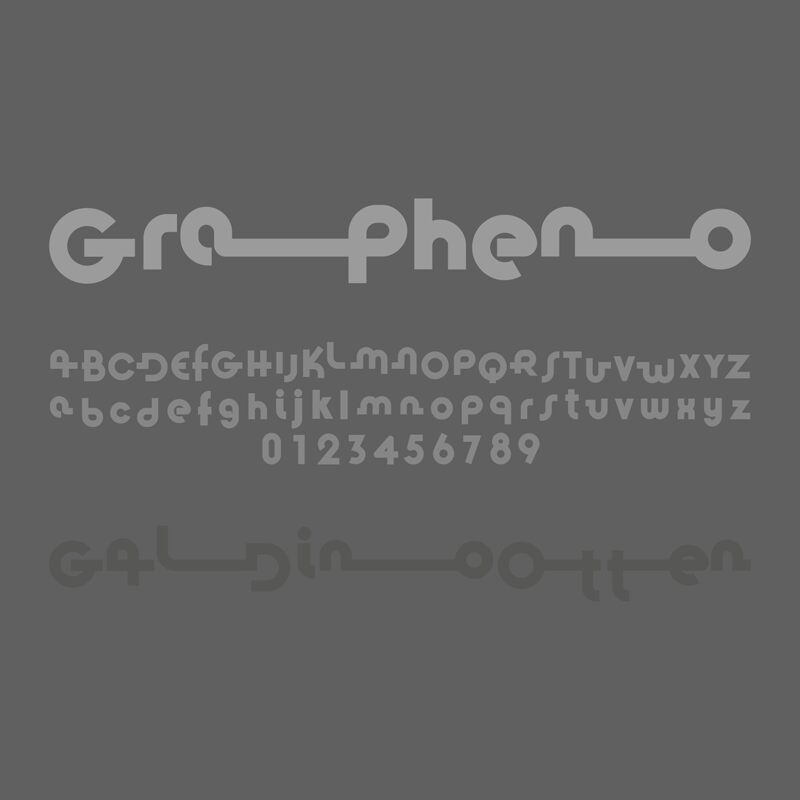
Grapheno
Grapheno, a bold and groovy display font by Galdino Otten Fonts Ltda, is perfect for projects that demand attention.
Its eye-catching style adds a touch of retro funk to any design, making it ideal for album covers, posters, and flyers. With its strong presence and thick strokes, this font commands the spotlight on branding materials and headlines. Grapheno's distinct grooviness also lends itself well to creative packaging designs and vibrant signage.